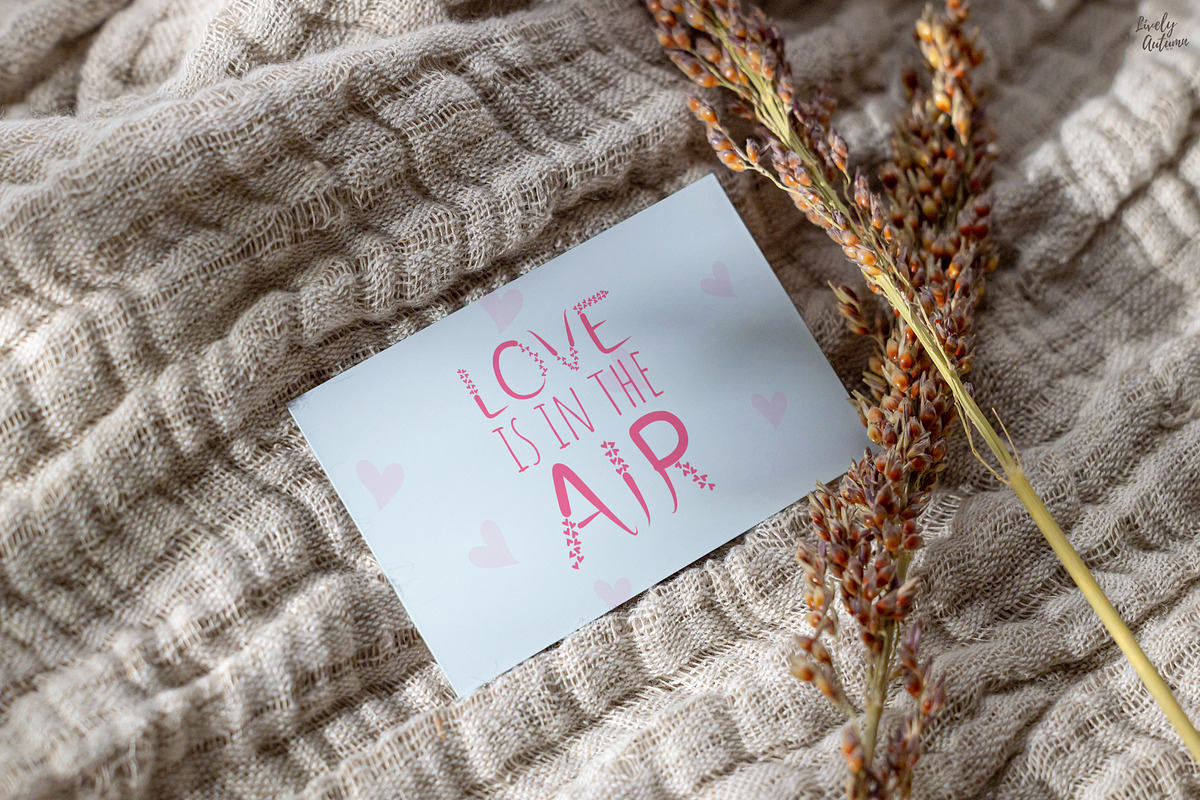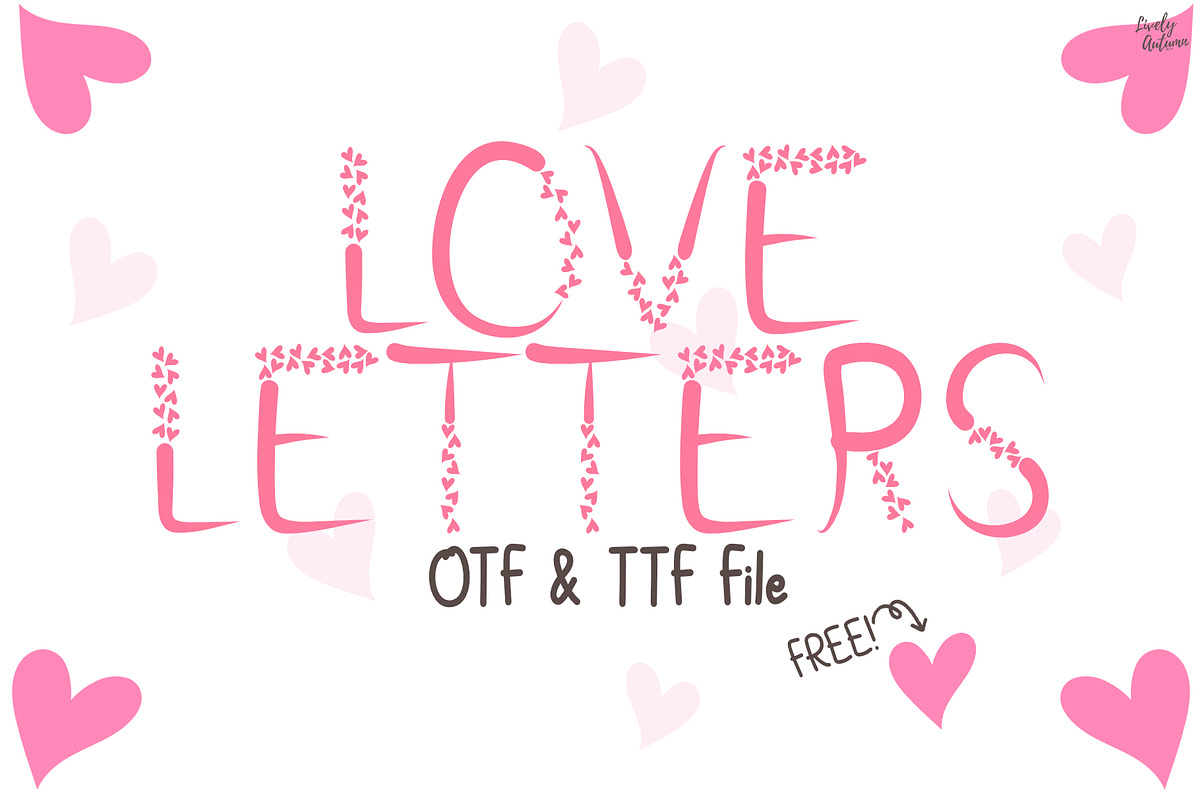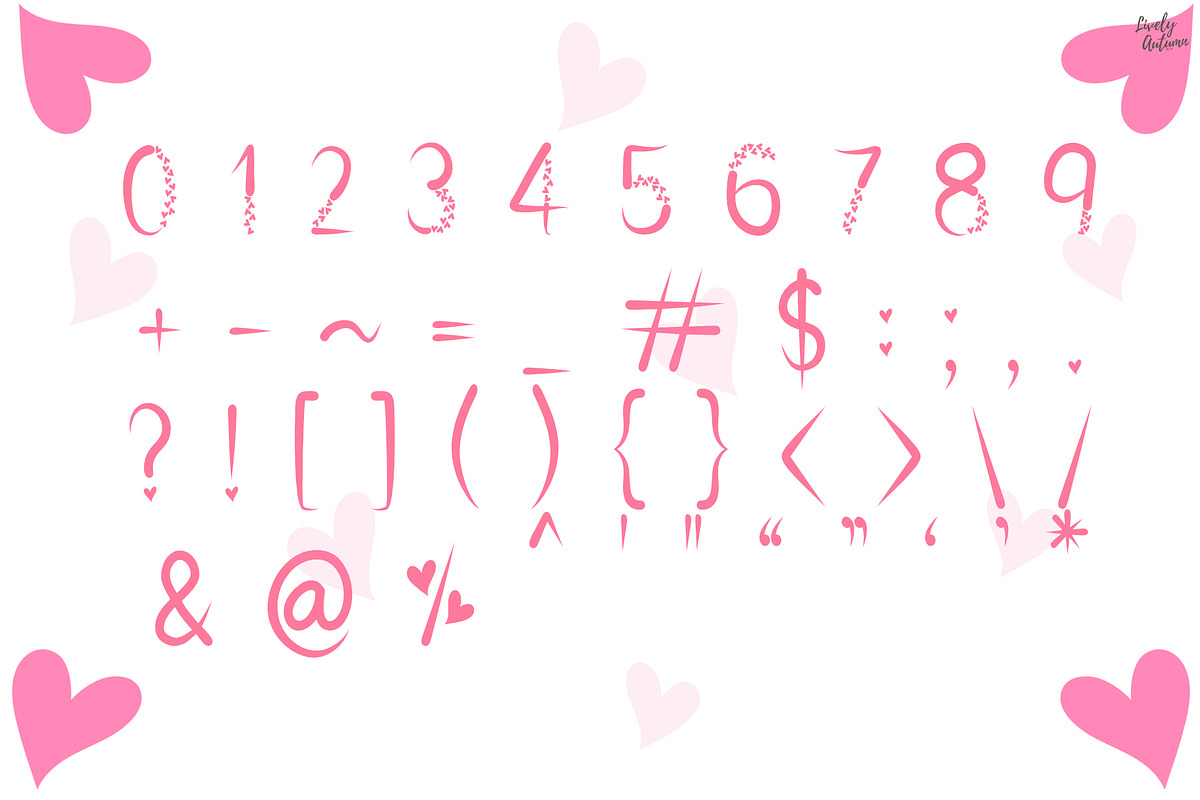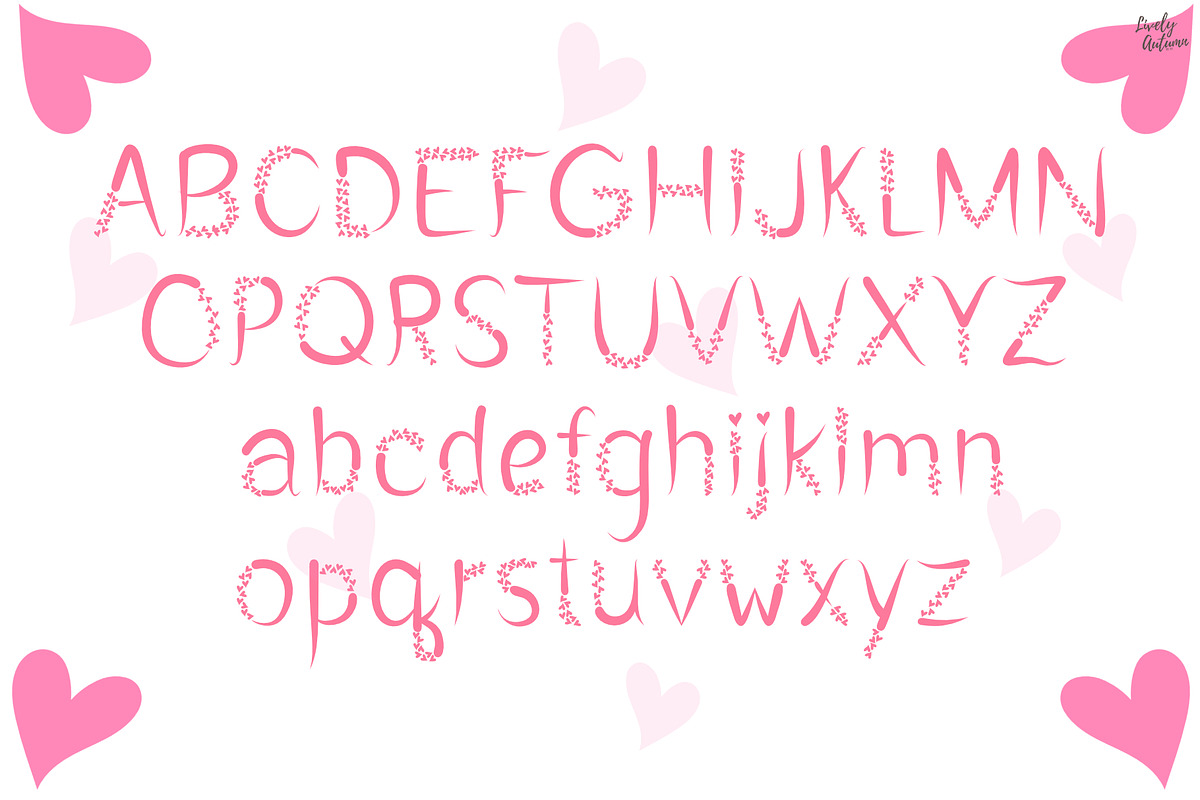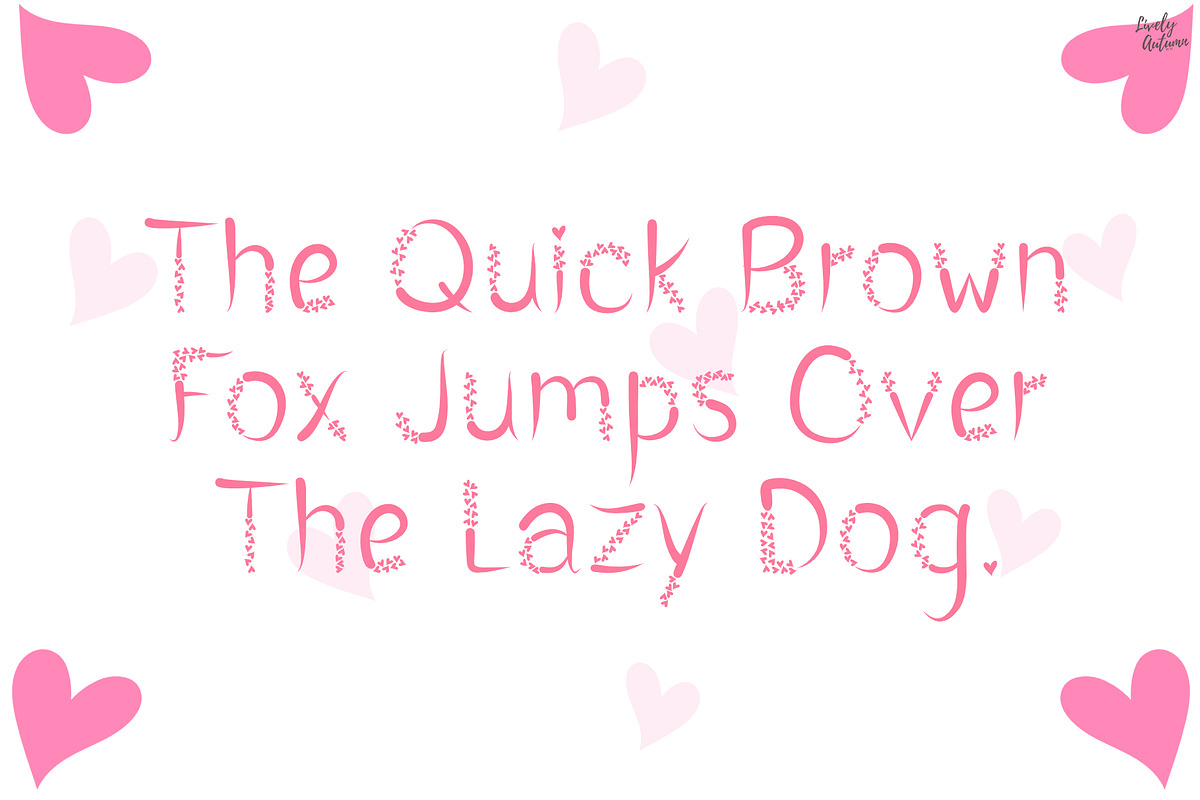
Love Letter | Decorative Font
Love letter is a fancy decorative font with small hearts placed along the shapes of the letters. Perfect for your Valentine's Day cards, Valentine projects, heartfelt messages. From invitations to posters, social media graphics, journals, greeting cards, and much more.
- Font includes: uppercase, lowercase, numbers, and punctuation.